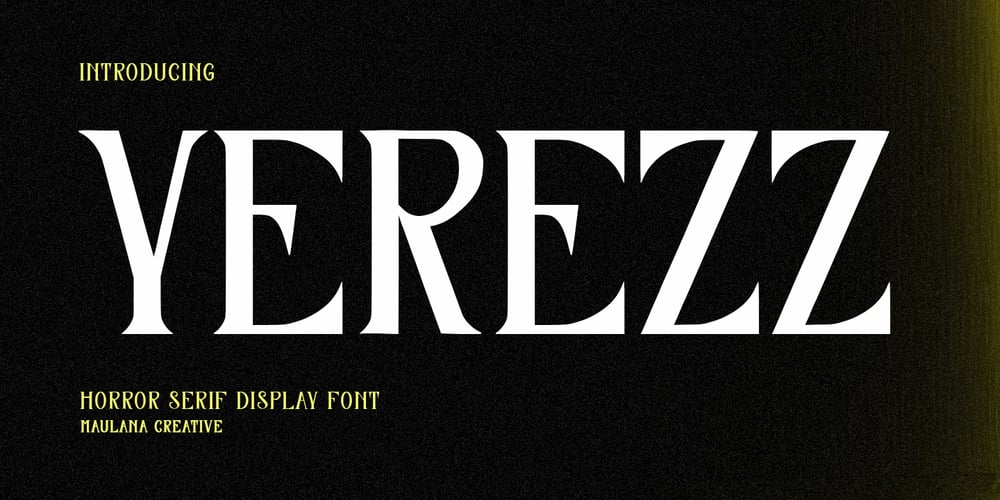
MC Yerezz Font Family was designed by Gilang Maulana and published by Maulana Creative. MC Yerezz contains 1 styles and family package options. Yerezz serif display font. Heavy stroke, fun character with a bit of ligatures. To give you an extra creative work. Yerezz serif display font support multilingual more than 100+ language. This font is good for logo design, Social media, Movie Titles, Books Titles, a short text even a long text letter and good for your secondary text font with script or serif. Make a stunning work with Yerezz serif display font. –UppercaseCheers,Maulana Creative